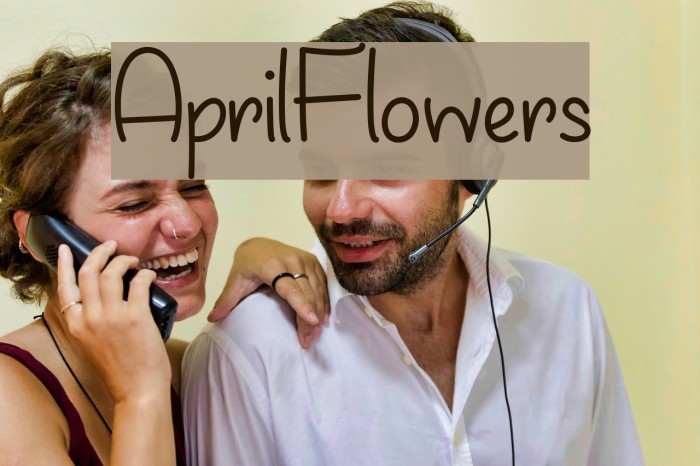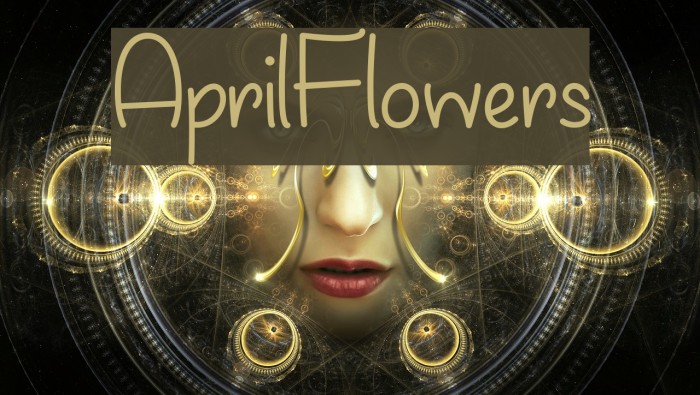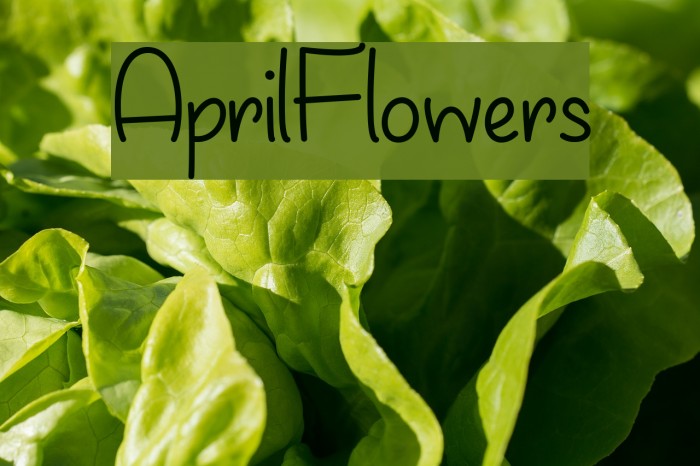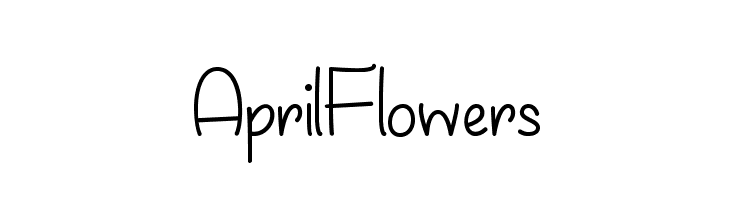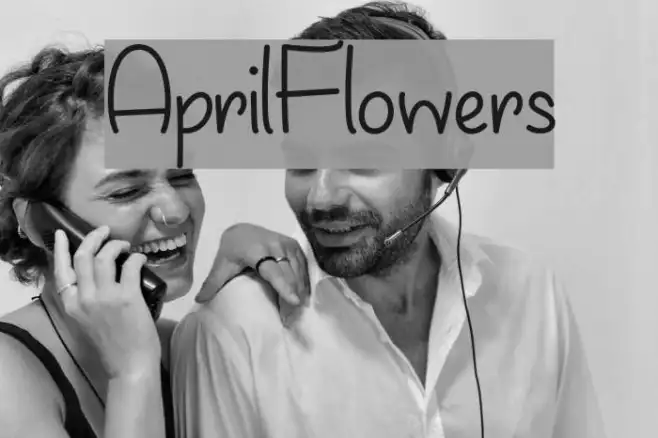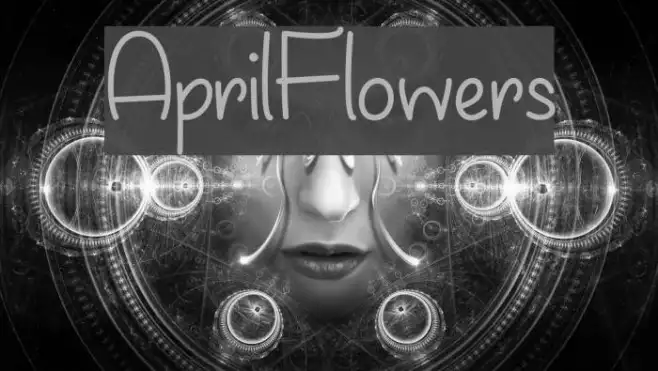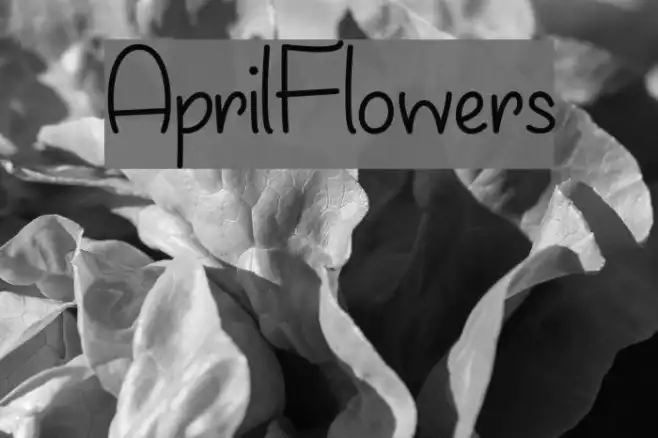
AprilFlowers Font
This playful and whimsical font features a handwritten style with smooth, flowing curves and a casual, friendly appearance. The characters are slightly elongated, giving them a unique and approachable look. The uppercase letters maintain a consistent height, while the lowercase letters have a charming irregularity that adds to the font's personality. The numerals are clear and easy to read, complementing the overall style. Special characters are well-integrated, maintaining the font's cohesive look. This font is perfect for projects that require a touch of fun and creativity.
A playful, handwritten font with smooth curves and a casual style.
- Proposed Projects: Ideal for greeting cards, children's books, playful branding, and creative invitations.
- Overall Style: Playful
- Use Case: Headlines, Logos, Invitations